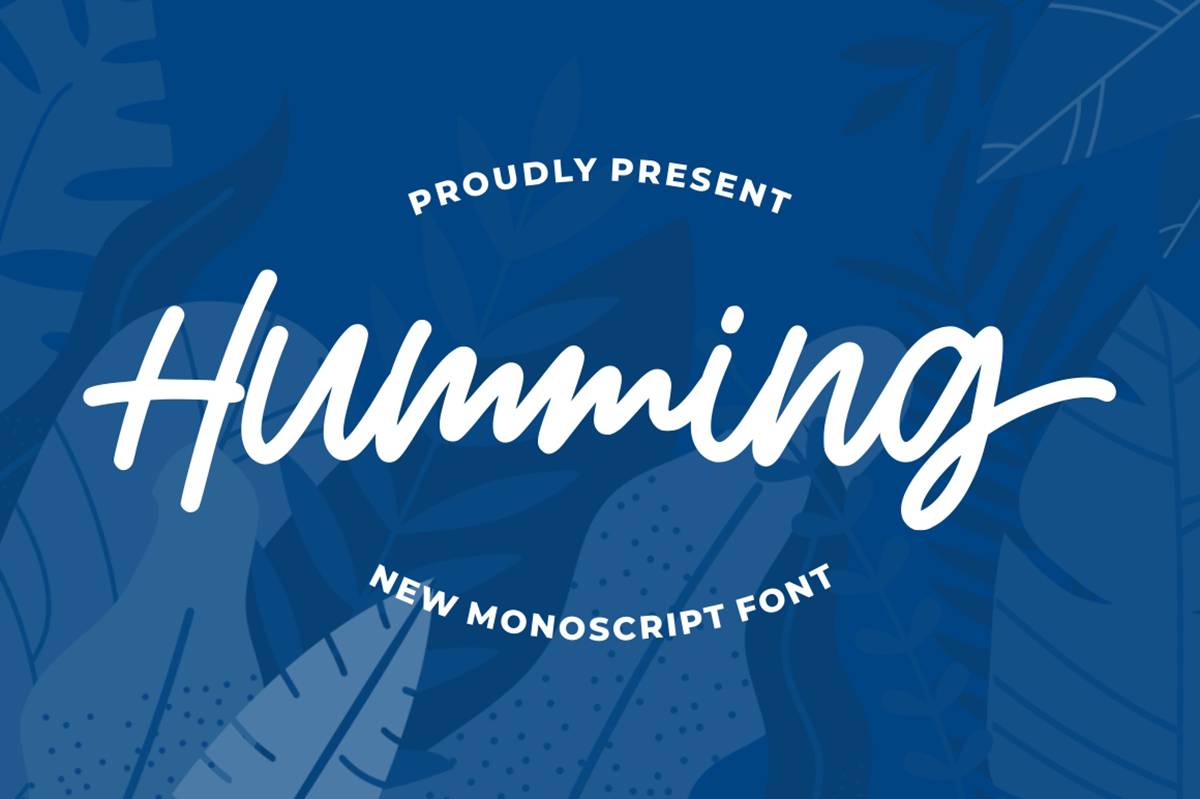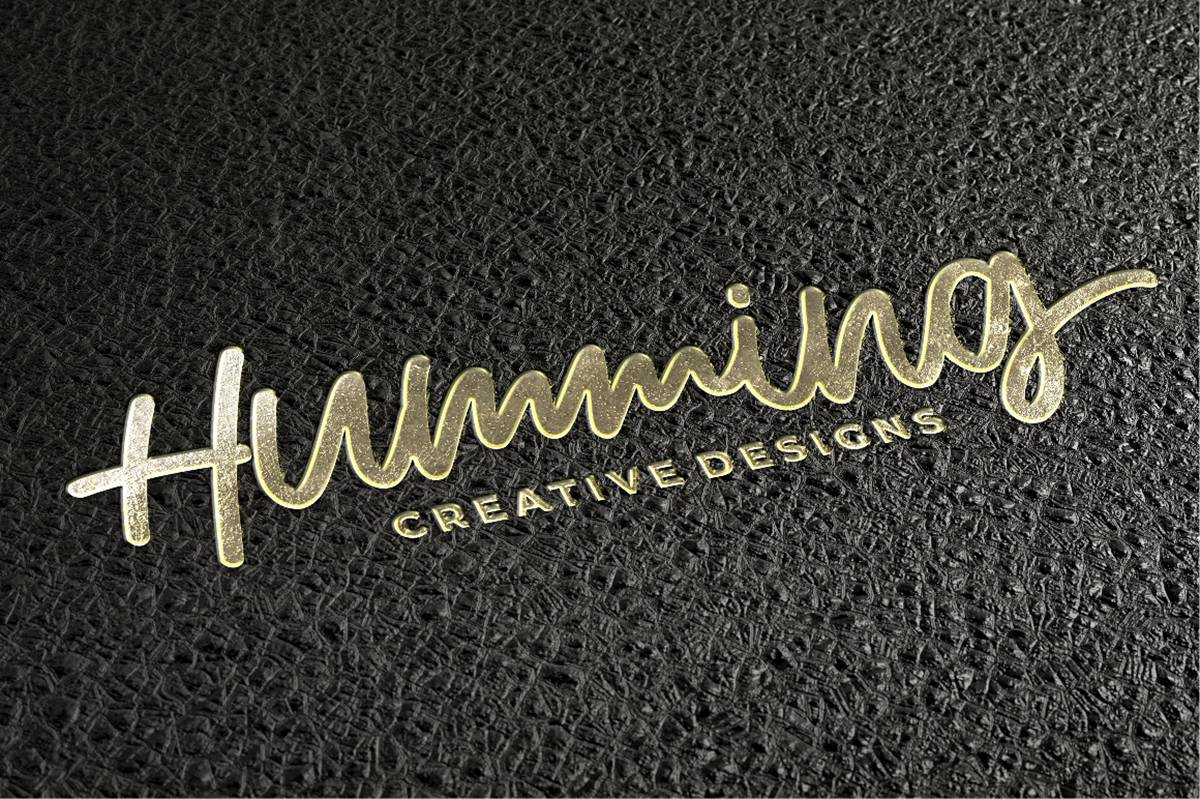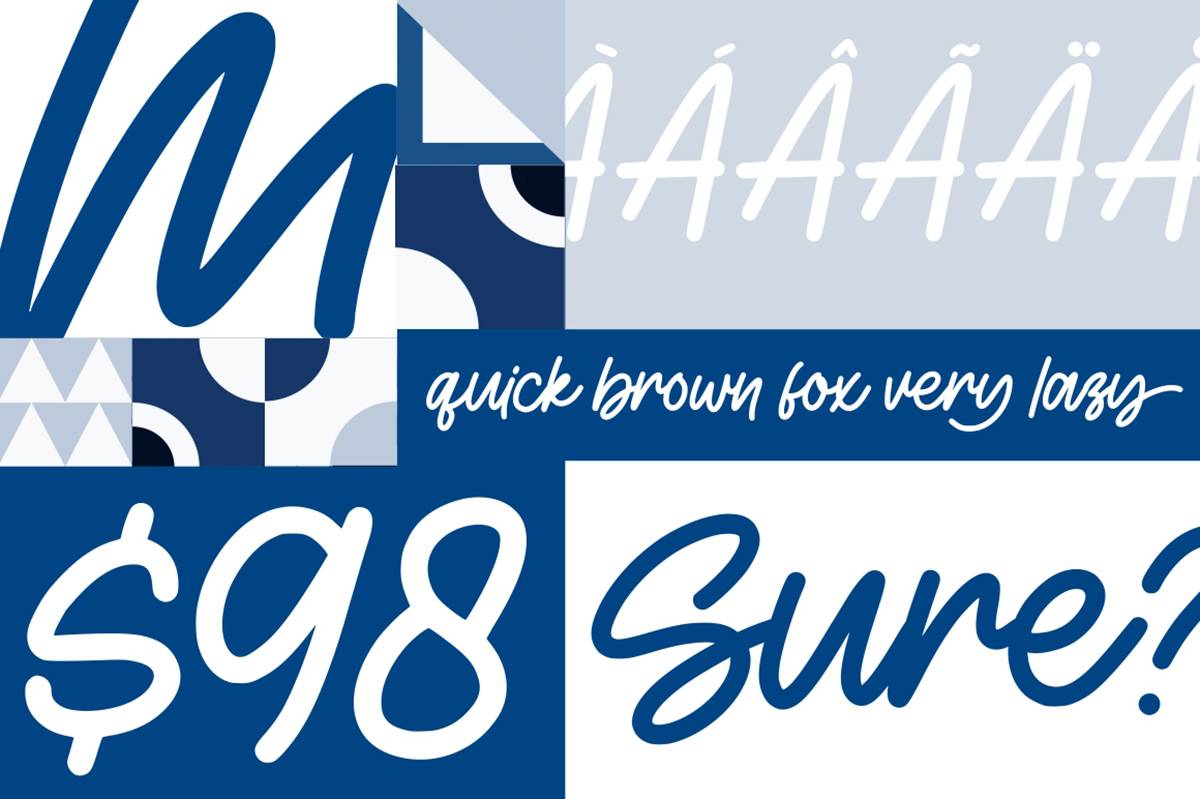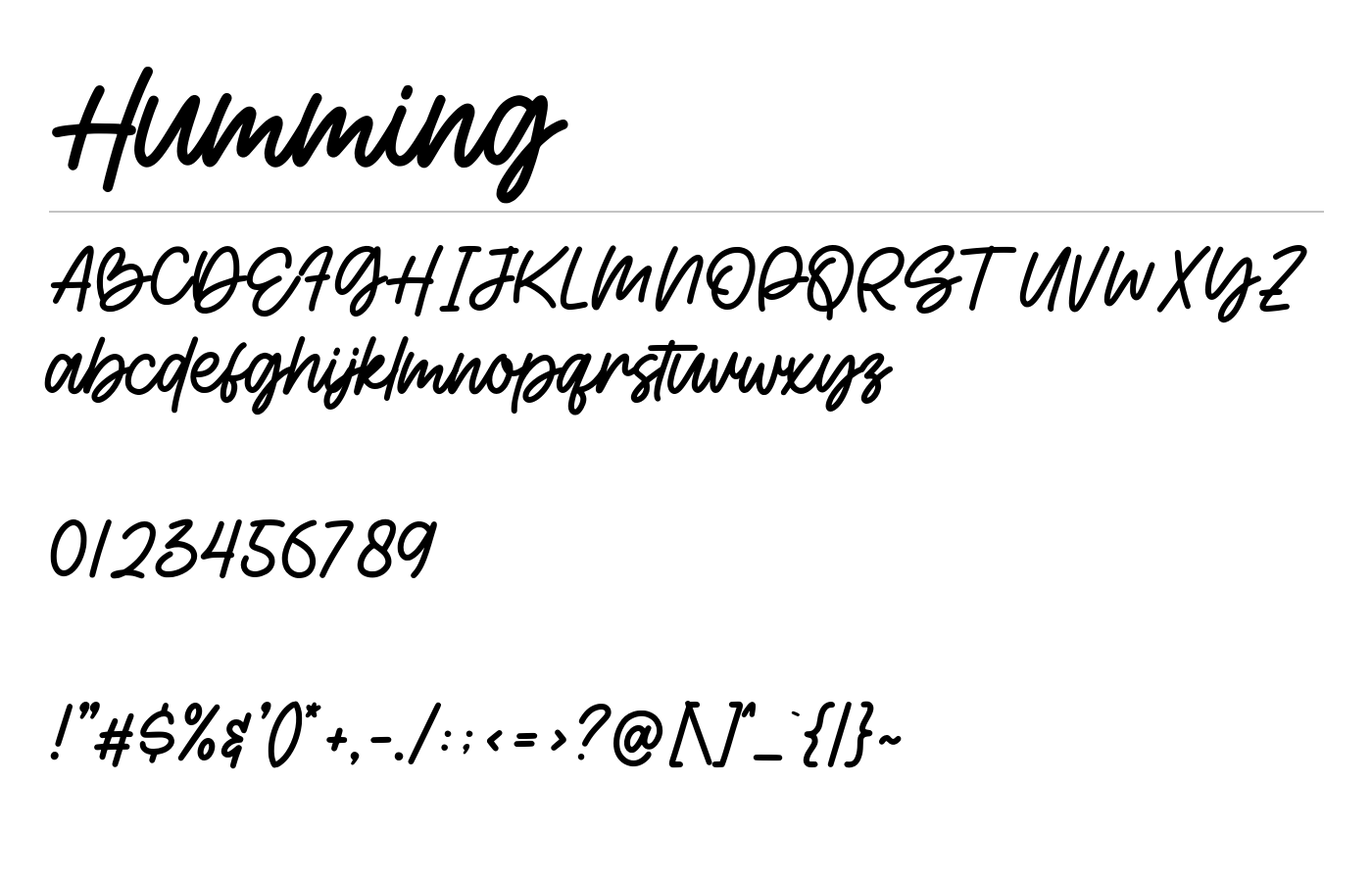
Humming is a lively, casual script font with a smooth, hand-drawn style that feels approachable and energetic. Its medium weight, slightly condensed letterforms, and natural stroke flow make it perfect for branding, invitations, or any design needing a friendly, personal touch. This font works especially well in creative and informal settings where warmth and personality are key.
Humming Font
About Humming Font
| Font family | Humming Font |